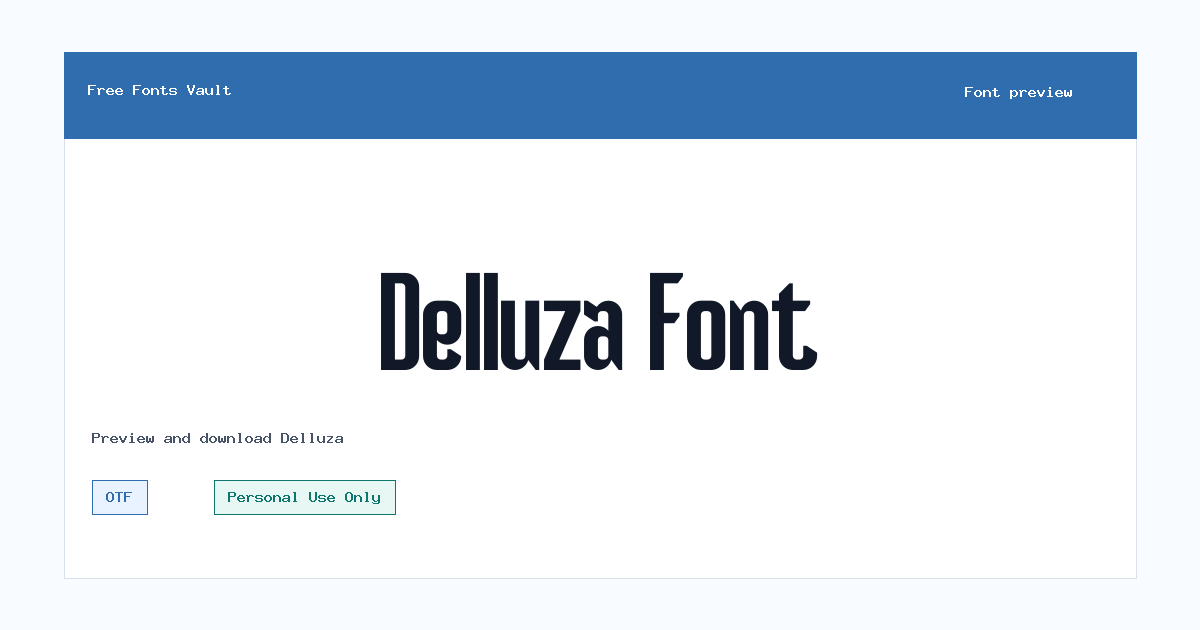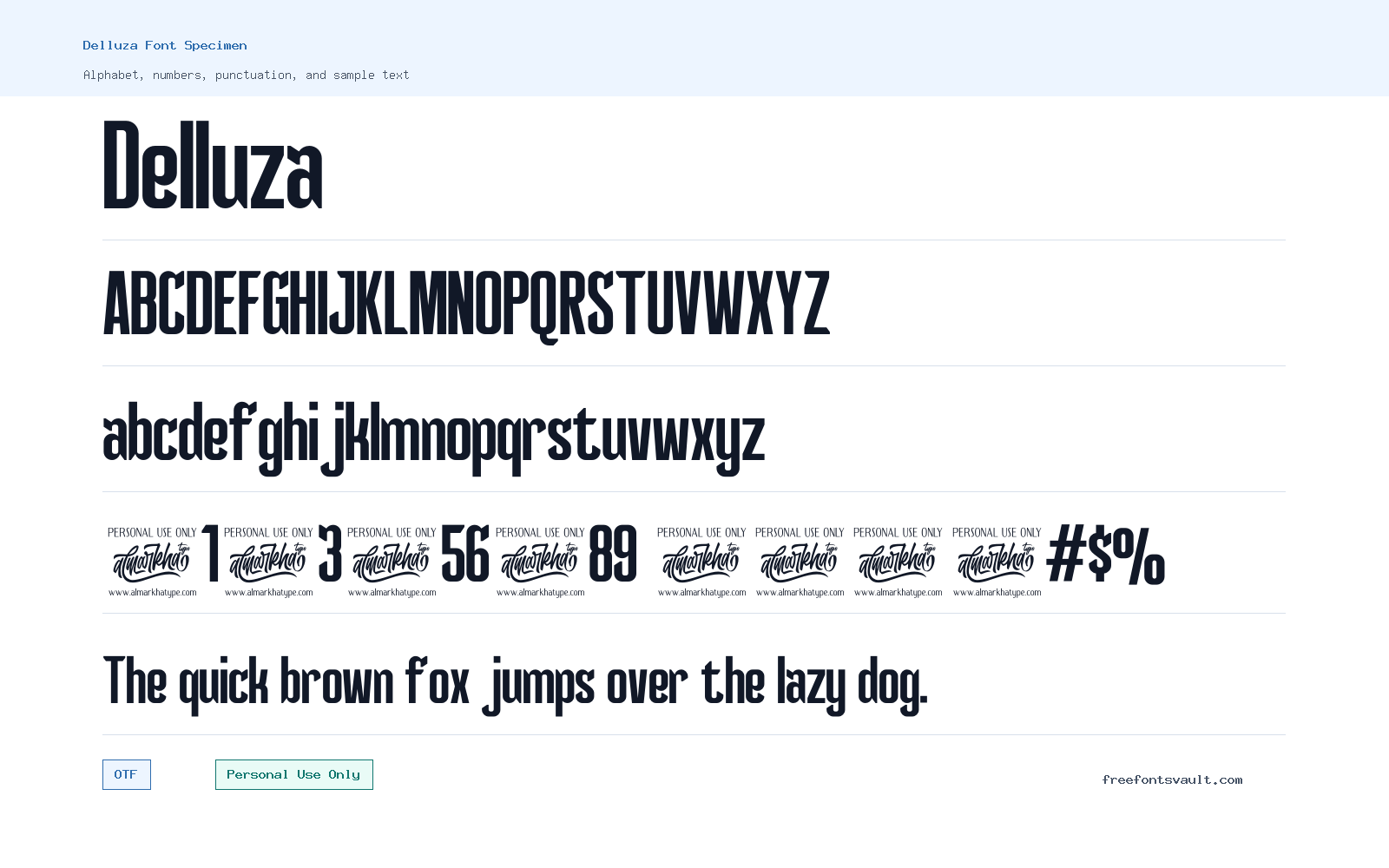
Delluza
- Designer Almarkhatype Studio 2021 - Abdul Malik - Adriansyah
Delluza font.
Delluza is a personal-use sans serif font from Almarkhatype Studio. It comes as a regular OTF font file and is best approached as a display-friendly typeface for testing headlines, logo concepts, posters, and visual branding drafts.
About Delluza Font
Delluza has the kind of clean sans serif structure that works well when a design needs a direct, modern-looking wordmark or short headline. Because the confirmed file is a regular 400-weight OTF, it is most useful as a single-style font rather than a large family with multiple weights. That means it is better for focused display use than for building a full editorial system. Try it first in names, short phrases, product mockups, social graphics, and cover-style layouts where one strong font can carry the main message.
For logo work, Delluza can be useful at the sketching and concept stage because a single regular style keeps the design simple. Test the spacing carefully before using it in a finished mark, especially if the name contains narrow letters, repeated vertical strokes, or mixed uppercase and lowercase forms. For posters and web mockups, use Delluza for the main title or a short callout, then pair it with a quieter text font for longer reading. Since there is only one confirmed style, avoid relying on bold, italic, or extended weight variations unless you create those treatments separately in your design software.
- Sans serif style suited to short display text
- Simple single-style setup for quick design testing
- Useful for headings, logo drafts, posters, and mockup typography
- Logo concepts and wordmark drafts
- Website hero headings and landing page mockups
- Social media quote cards or announcement graphics
- Packaging concepts and presentation visuals
- Short brand-style text where a clean sans serif look is needed
Delluza is credited to Almarkhatype Studio 2021 – Abdul Malik – Adriansyah. The listed designer website is almarkhatype.com.
What type of font is Delluza?
Delluza is listed as a sans serif font. The confirmed font file is a regular OTF style with a 400 weight.
Is Delluza good for body text?
Delluza is better suited to short text such as headings, names, posters, and mockups. For long paragraphs, pair it with a simple, readable body font.
What should I pair with Delluza?
Pair Delluza with a restrained text face that does not compete with the heading. A neutral sans serif or a readable serif can work well, depending on whether you want a cleaner or more editorial layout.